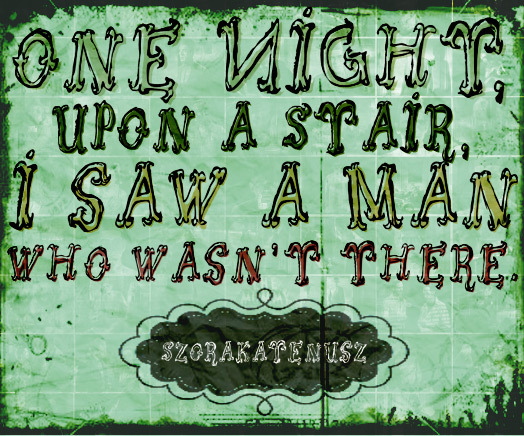
Szorakatenusz by Bumbayo Font Fabrik is a free hand-drawn fantasy display font with warped, outlined letters. Uneven strokes, curling tips, and pinched serifs give the forms a restless storybook quality. The outlines wobble like inked illustration rather than polished type.
Its fairy-tale strangeness suits children's book covers, fantasy game graphics, and theatrical posters with comic or mysterious themes. On confectionery packaging or event merchandise, the recurring curls and knotted contours can echo vines, smoke, or sketchy creatures, making the lettering part of the illustrated world.